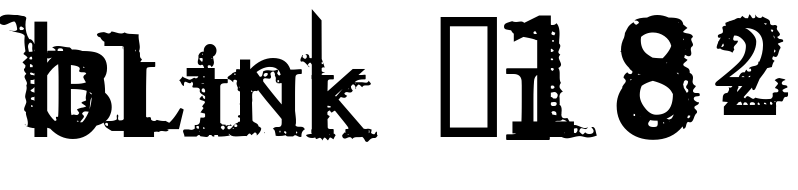
Blink 182 Font
BandBlink-182 is an American rock band formed in 1992, known for their pop-punk style and hits like "All the Small Things."
The Blink-182 logo as it appeared on the cover of their debut album, Cheshire Cat, is displayed above. The band's name is displayed in lowercase and a serif typeface Times Bold on the logo.
The second album Dude Ranch saw a freshly created logo with the words "Blink 182" in all caps, slab serif, and with stars on either side of the "182". The font used is probably Rockwell.
The logo as seen on the cover of Enema of the State uses sans serif fonts. Alternate fonts for them are Helvetica Bold Oblique for “blink” and Trade Gothic for “182″.
This Blink-182 logo has the “blink” part in same typeface Helvetica Bold Oblique, but Futura Book for “182″, as shown on the cover of Take Off Your Pants and Jacket, released in 2001.
The smiley face logo is a "smiley face" with Xs for each eye and five arrows on the left side of the face. It initially debuted on the cover of their self-titled album, which was published in 2003. Blink-182 is written in grunge letters beneath the smiley-face logo which seems to be the Resurrection typeface. Only a few punctuation signs, capital, lowercase, and numerals are available for the font. You can download the font for free in the Fonts Used Section.